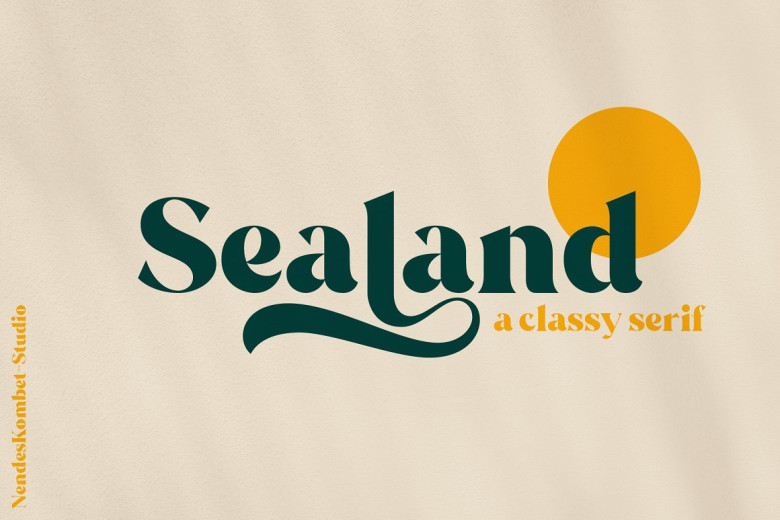
Sealand Font
Sealand is an upper and lowercase serif font with nicely balanced curves. Like all of my fonts it is inspired by lettering from the good old past, but it still has a strong modern appearance. Its wide range of stylistic alternates allows versatile design options and works perfectly for headlines, logos, posters, packaging, T-shirts, postcards and much more.
Sealand Classy Serif Font